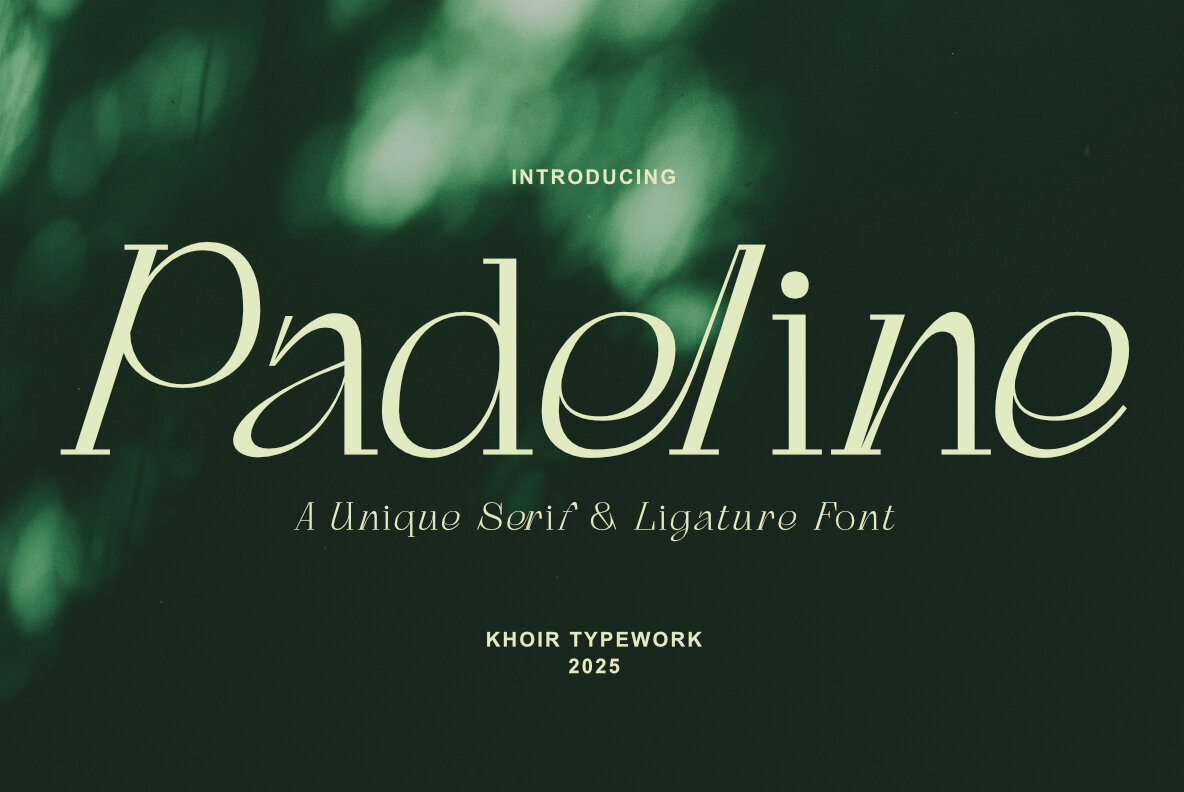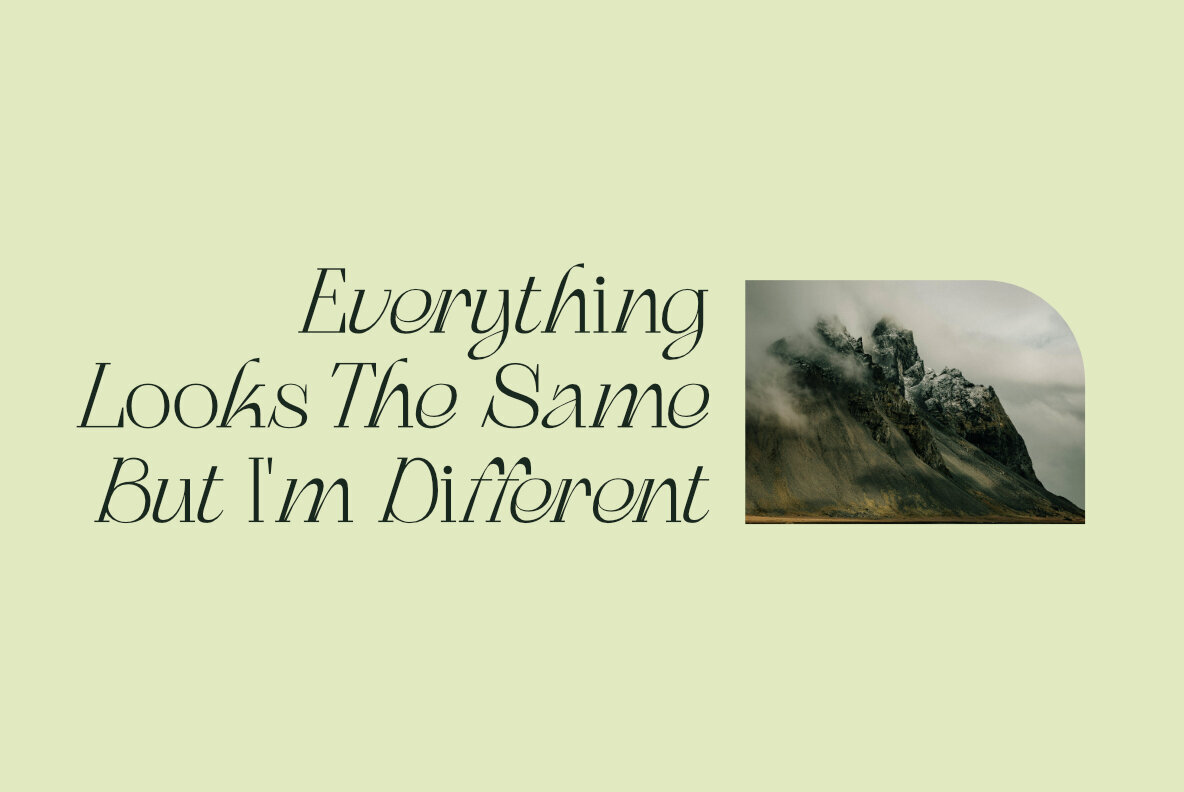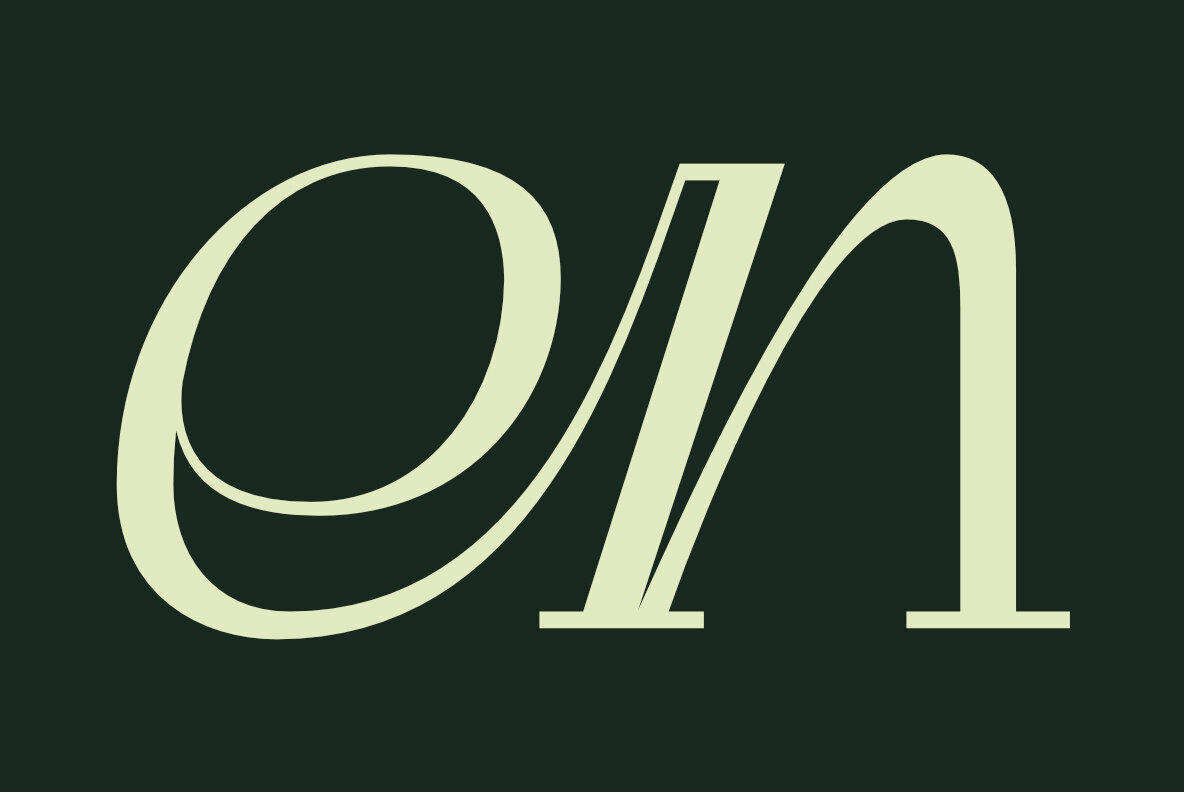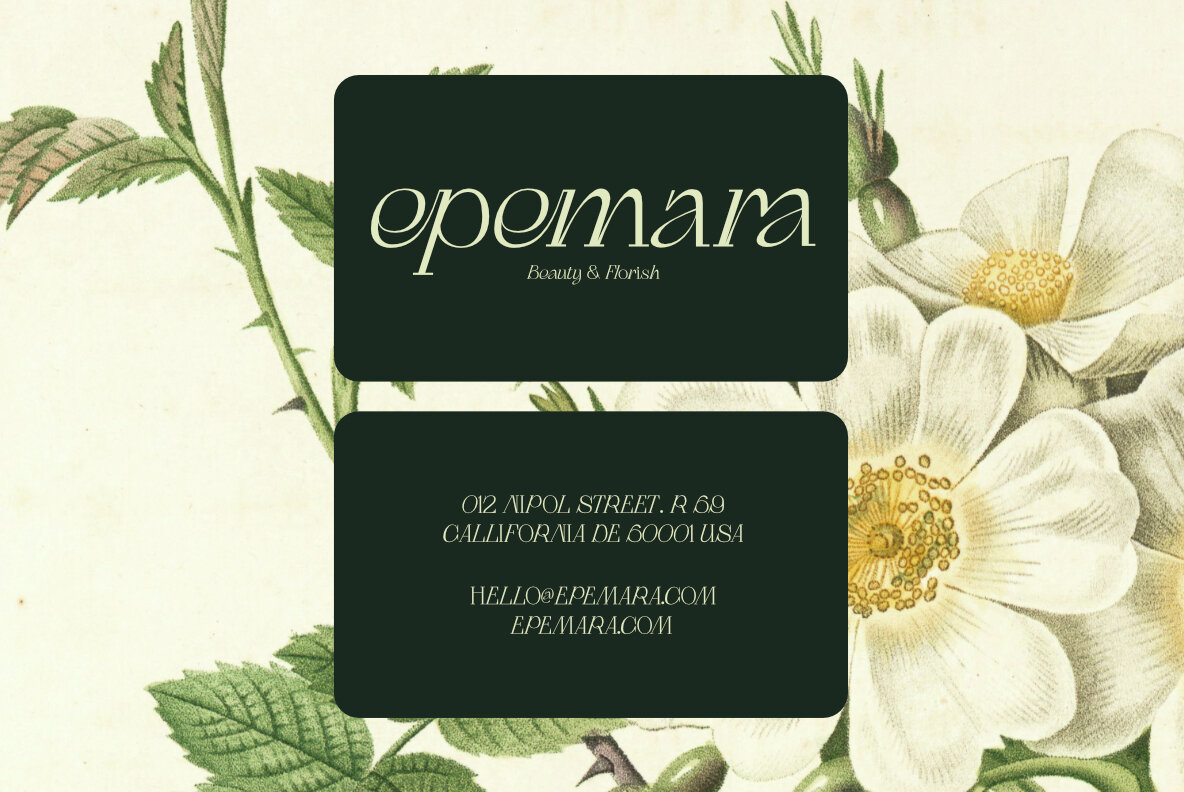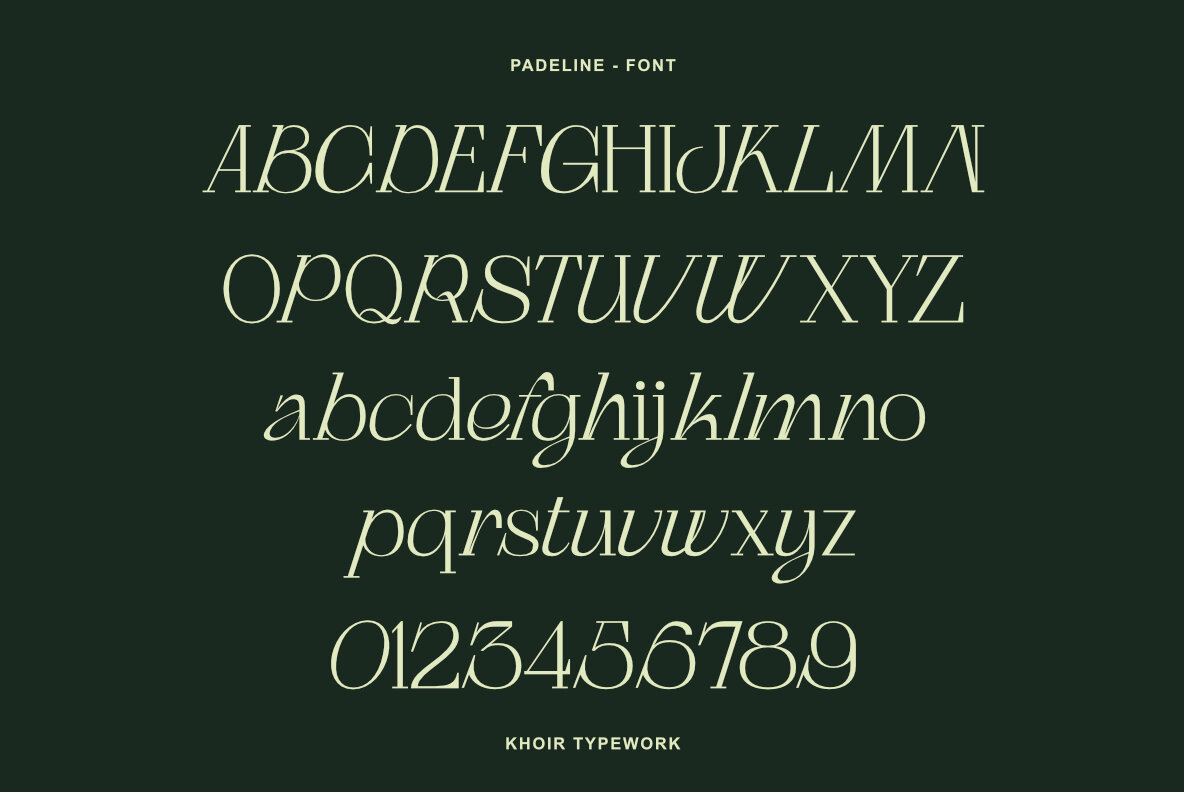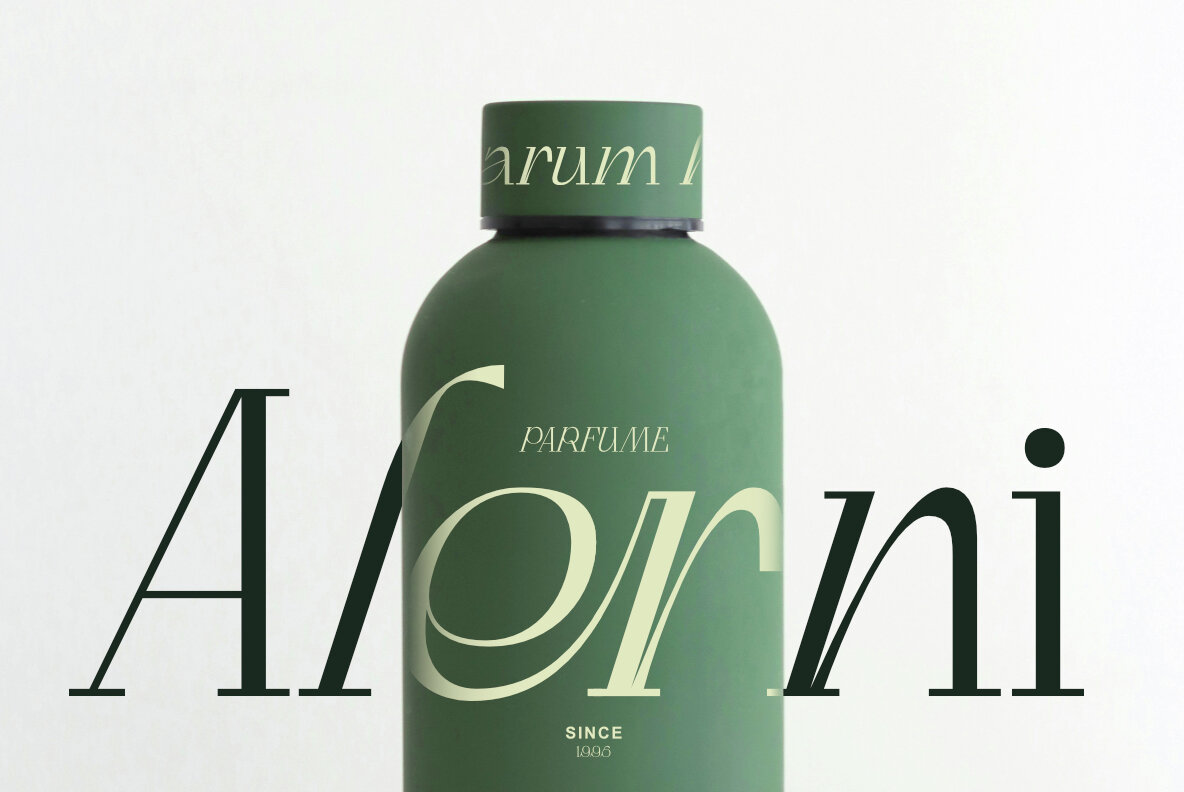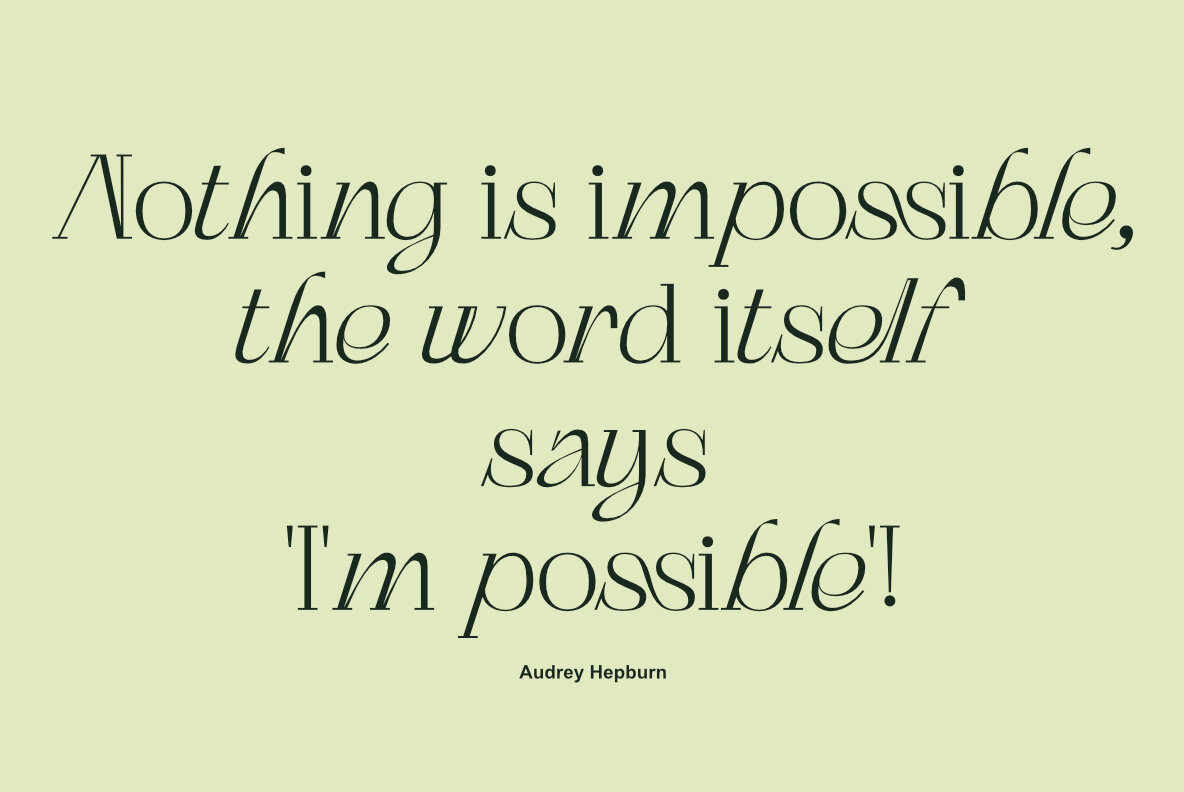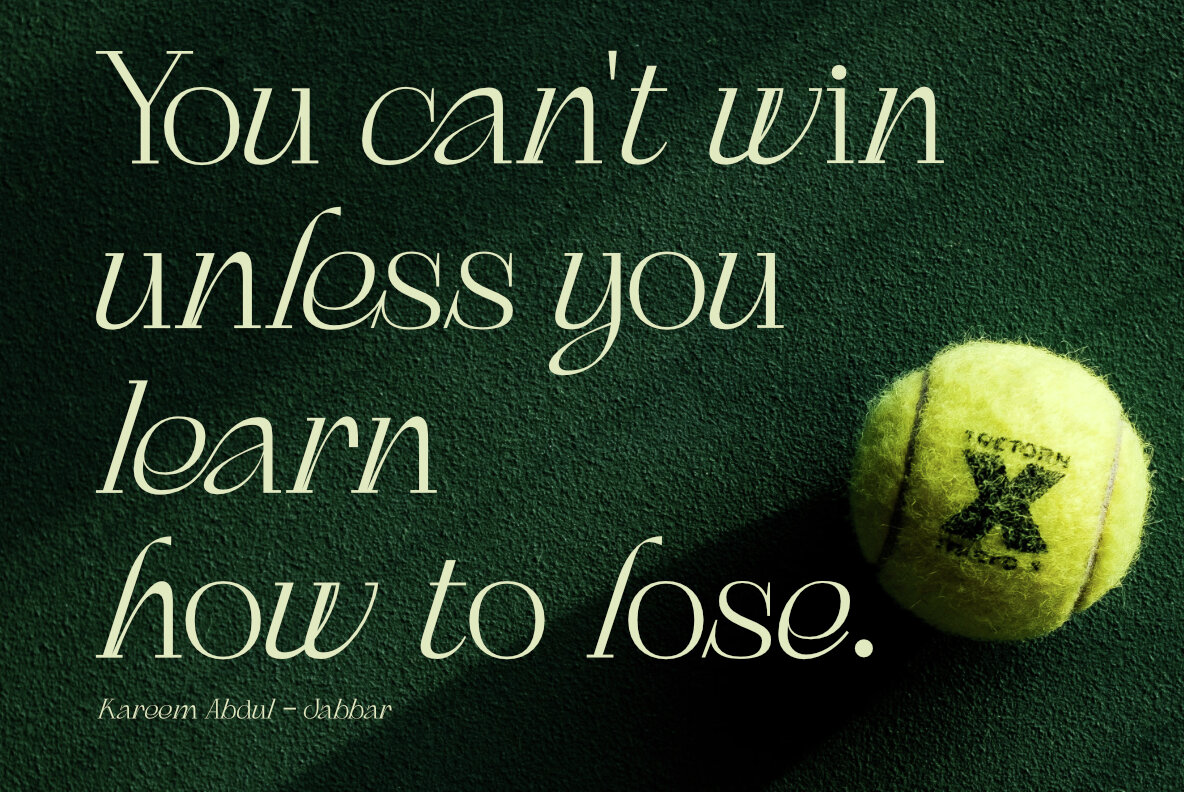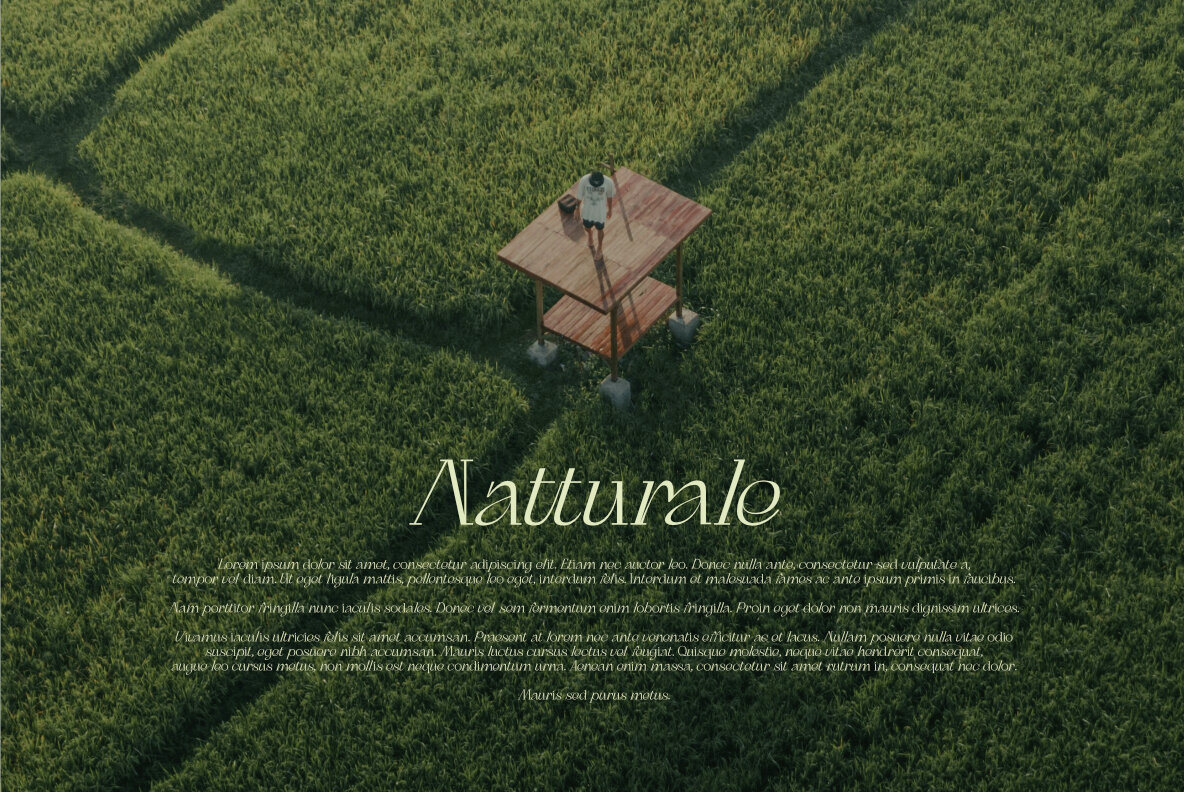
Padeline Font
Padeline Regular
Padeline stands out with its unique letter composition, giving each word a distinct character not found in classic serif designs. Its subtle irregularities create a fresh visual rhythm, adding depth and sophistication to contemporary projects. Designed with care, Padeline blends traditional structure with modern elegance, making it a strong choice for branding, editorial layouts, and creative headlines. Built-in alternates and ligatures promote fluid readability and a natural appearance. Padeline offers an elevated aesthetic while supporting typography in over 75 languages, ensuring versatility across varied design needs. Its balanced proportions and refined serifs give every composition a sleek, polished look.Padeline Modern Serif Typeface